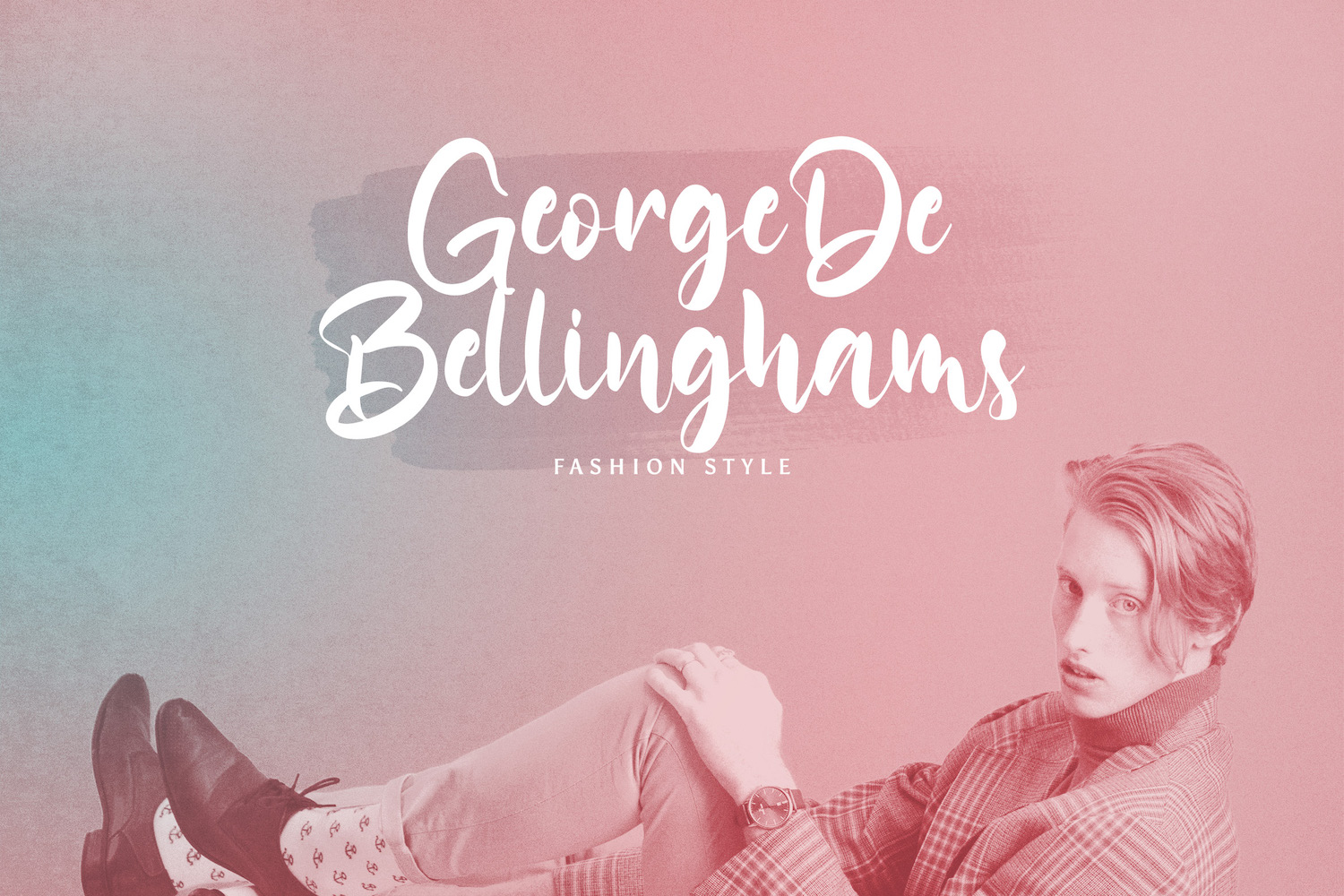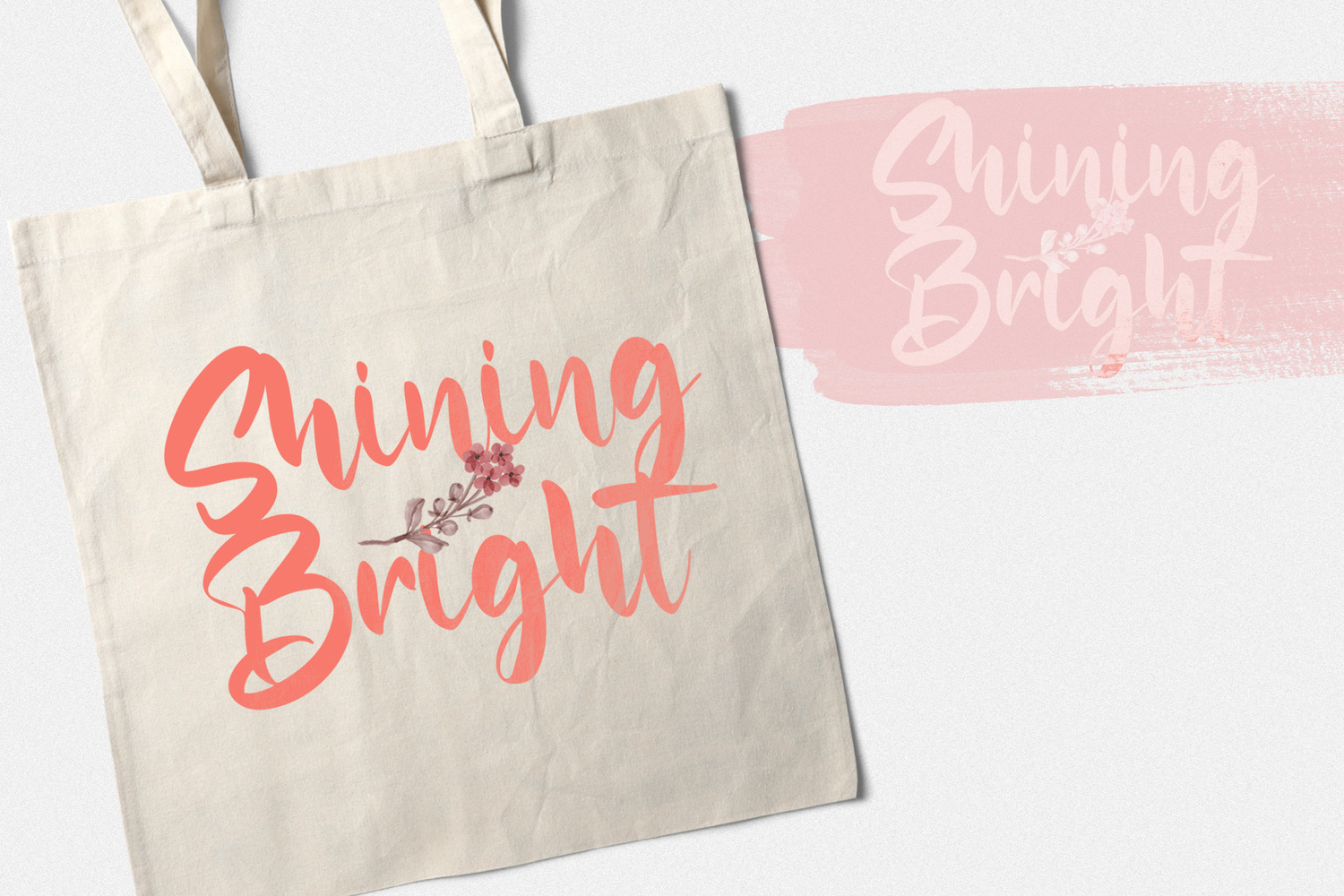
Toniya Smith is a modern brush-script handwritten typeface by Stringlabs, designed to capture the charm of real pen-and-brush lettering—expressive, friendly, and effortlessly personal. License: Free for personal use.
Its strokes move with a natural rhythm: rounded turns, slightly bouncy baselines, and confident downstrokes that feel hand-painted rather than mechanically drawn. The letter connections are smooth and lively, giving words an easy flow that reads clearly while still keeping that “made by hand” character.
Toniya Smith sits in a sweet spot between casual and polished. It carries the imperfect warmth of manual writing, yet maintains consistent spacing and a clean silhouette—making it reliable for headlines and short phrases. A small set of built-in ligatures helps common letter pairs blend more seamlessly, so your typography looks more fluid and intentional. Overall, it builds a mood that’s bright, welcoming, and gently romantic—perfect for designs that want to feel human and approachable.
Best suited for personal projects like journals, greeting cards, quotes, stickers, DIY crafts, invitations, social posts, packaging mockups, and custom merch (tote bags, tees, and labels)—anywhere you want handwritten personality with a tidy, display-ready finish.